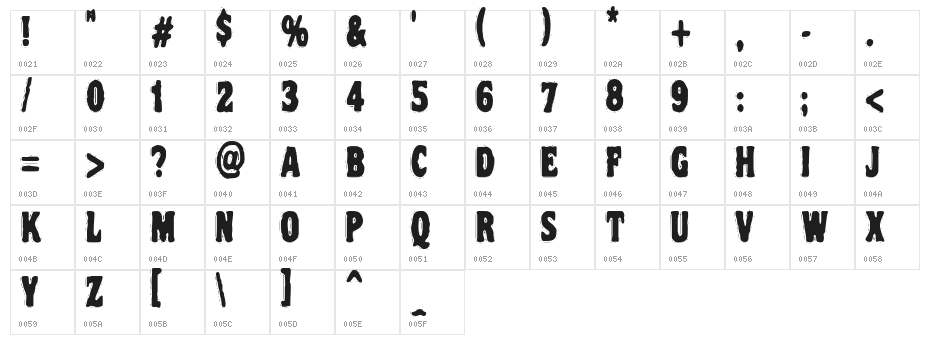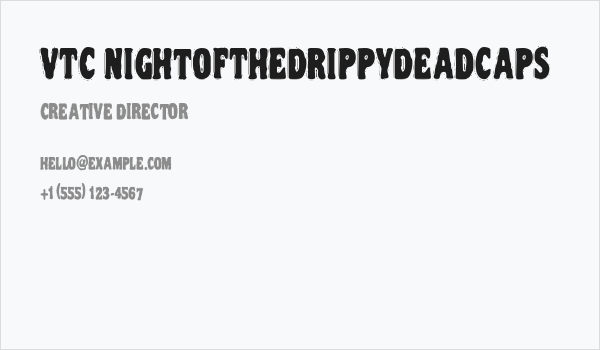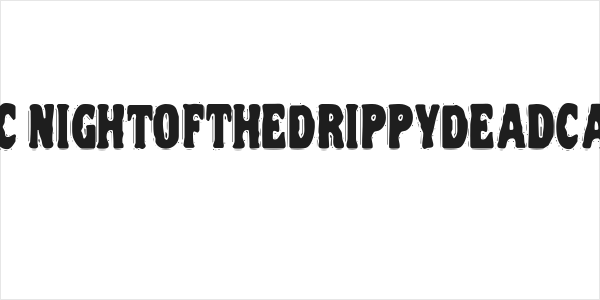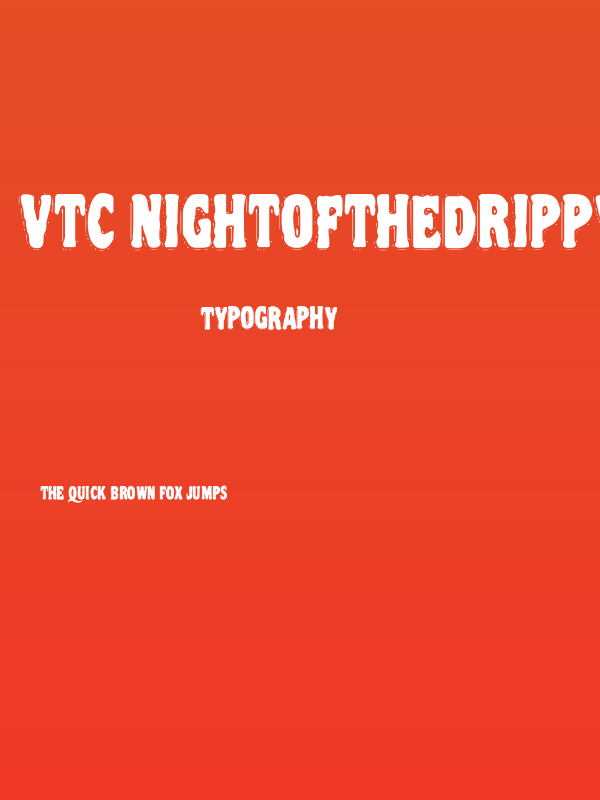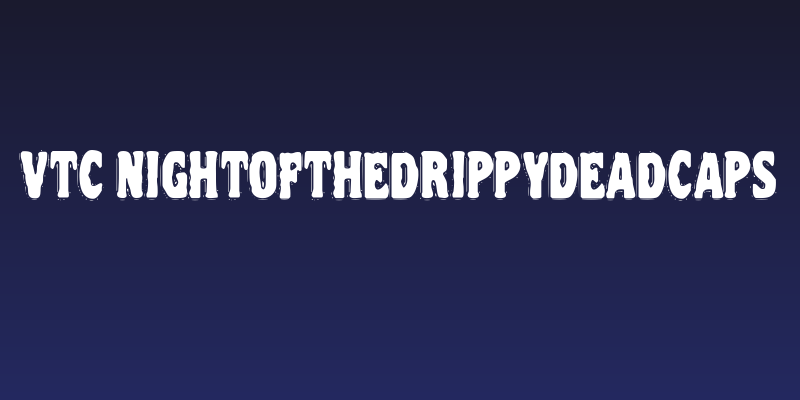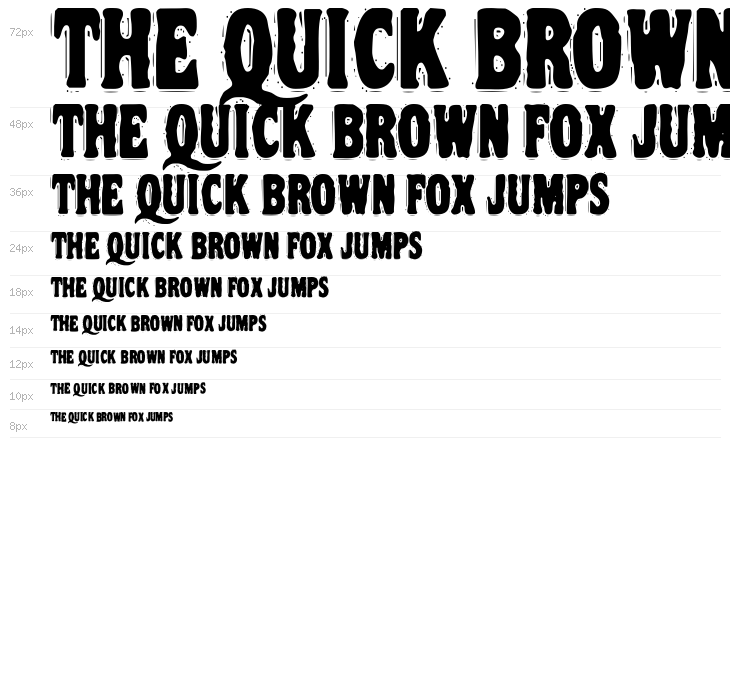
VTC NightOfTheDrippyDeadCaps Font
VTC NightOfTheDrippyDeadCaps Description
This font features a bold and playful design with a dripping effect that gives it a spooky, Halloween-inspired look. The letters are thick and rounded, with uneven edges that mimic the appearance of melting or dripping liquid. This unique style is consistent across both uppercase and lowercase letters, as well as numbers and special characters. The font's distinct appearance makes it ideal for themed projects that require a touch of the eerie or whimsical. Its boldness ensures high visibility and impact, making it suitable for eye-catching designs.
| Use Case | Headlines, Posters, Logos |
| Proposed Projects | Ideal for Halloween-themed designs, horror movie posters, party invitations, and any project requiring a spooky or playful aesthetic. |